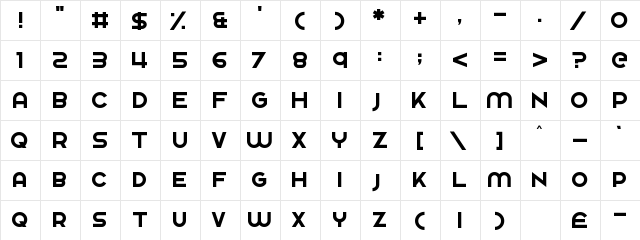
Fingbanger Regular
| Designer | Andrew McCluskey |
Design Context for Fingbanger Typeface
Fingbanger offers clean, dependable letterforms without strong stylistic allegiance, making it a practical choice for designers who need flexibility.
Pro Tip: Pair Fingbanger with a font of contrasting weight or personality to build a more expressive typographic hierarchy.